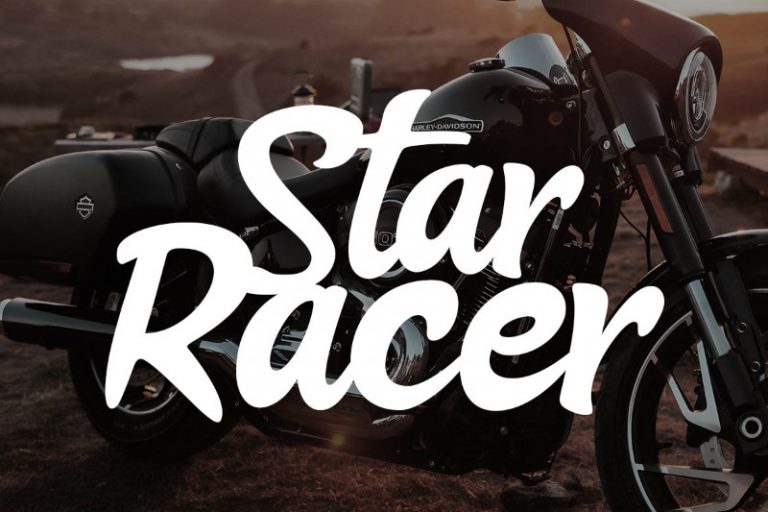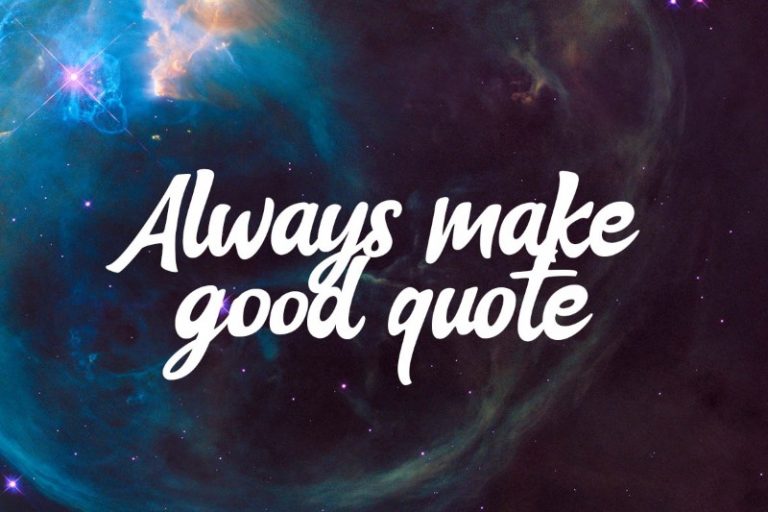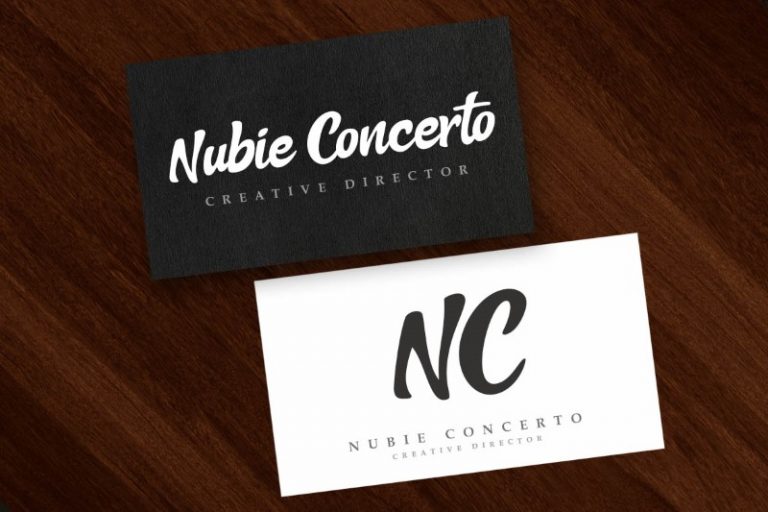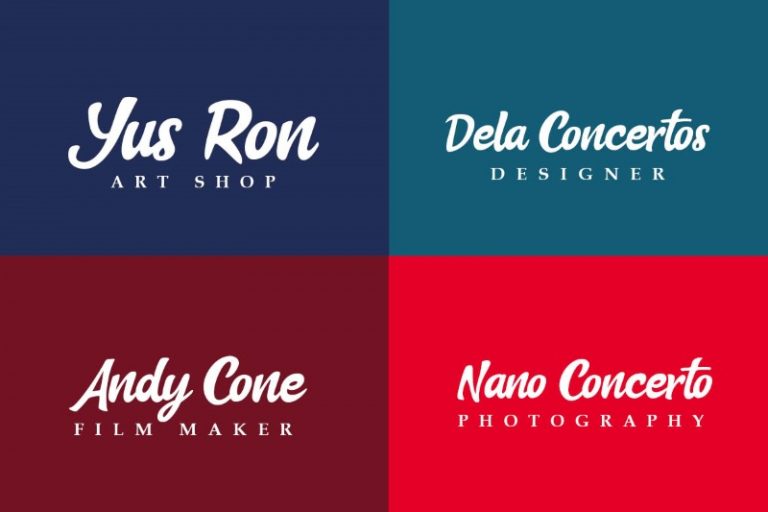
Blank Smile
Blank Smile font is modern handmade font, dinamic and also has beautiful opentype features. Blank Smile font is great for Branding, Logo Design, Lettering,Logotype, Clothing, Poster, magazine and other design project.
• Opentype Features (Ligature)